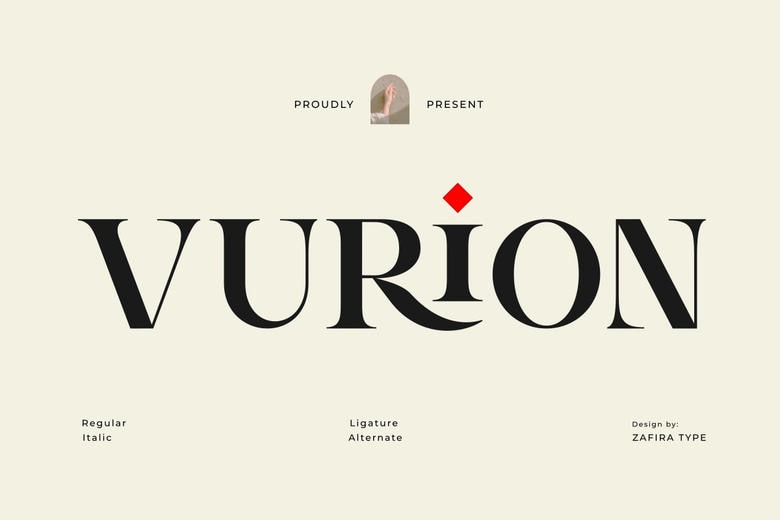
Vurion Font
Vurion is a high-end serif typeface that is intended to add elegance and clarity to your type. Vurion offers both Regular and Italic types: this typeface combines traditional and modern elements–perfect in editorial design, branding, and elegant layouts.
This typeface is well balanced in contrast and pleasing in its curves, providing character without making it difficult to read. Vurion is eternally handsome in any letter used as a headline, or in the body.
Vurion Serif Font